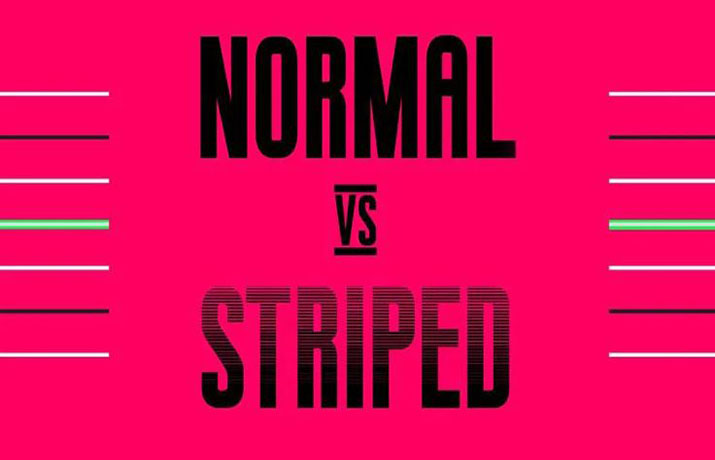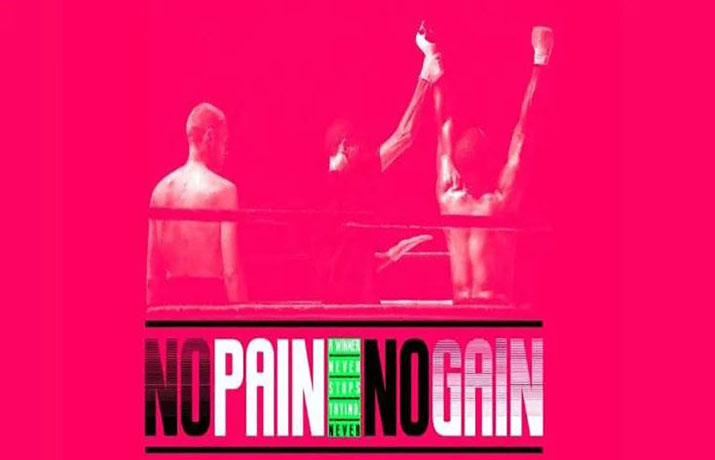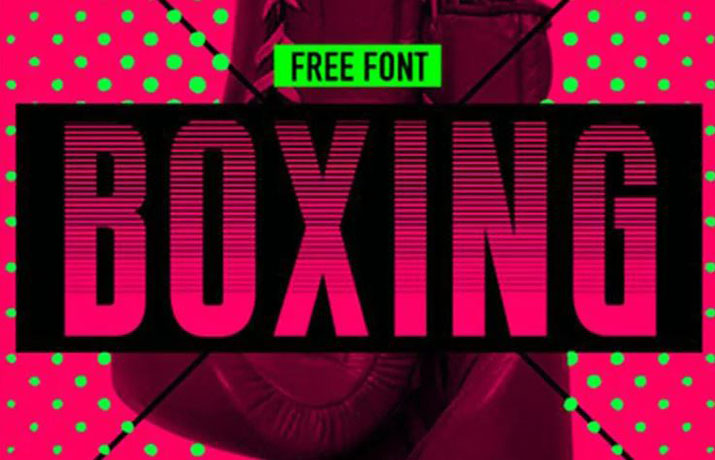
BOXING Font is a bold and powerful display typeface that has a strong and impactful look. It was designed and published by Tano Veron.
It has been created with a tall, & robust texture that maintains solidity all over the font family. Each letter is created with an extra large height and reduced width.
So, each letter gives a tall appearance and uniqueness. You can use it for various purposes such as headlines, posters, banners, flyers, signs, headers, social media graphics, ads, gaming, and more.
Font Name: | BOXING Font Family |
Style: | Bold, Display, Typeface |
Font Designer: | Tano Veron |
- It is frequently used for posters, headlines, branding, movie posters, distinctive signs, product design, special event cards, game graphics, and special events. It is well-known for its bold, industrial aesthetic. printing on various materials, including flyers, cards, headers, cartoons, titles, banners, and headers for children. It’s a fantastic option for branding, packaging, editorial design, headlines, posters, and logos.